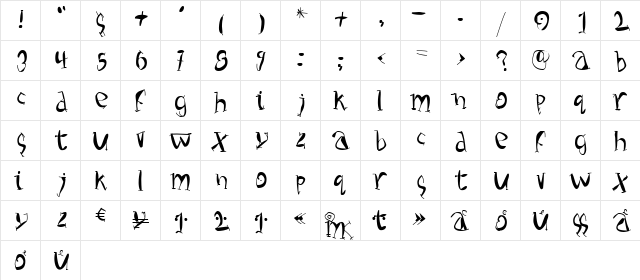
Handiqua Regular
Design Context for Handiqua Typeface
Handiqua flows with the natural rhythm of handwritten lettering, making it ideal for designs that call for warmth and personal expression.
Font Pairing: Combine Handiqua with a simple geometric sans for maximum contrast — the tension between flowing curves and clean structure is a classic typographic pairing.
Pro Tip: Pair Handiqua with a clean sans-serif for supporting text. The contrast between fluid script and geometric structure creates an elegant typographic hierarchy.